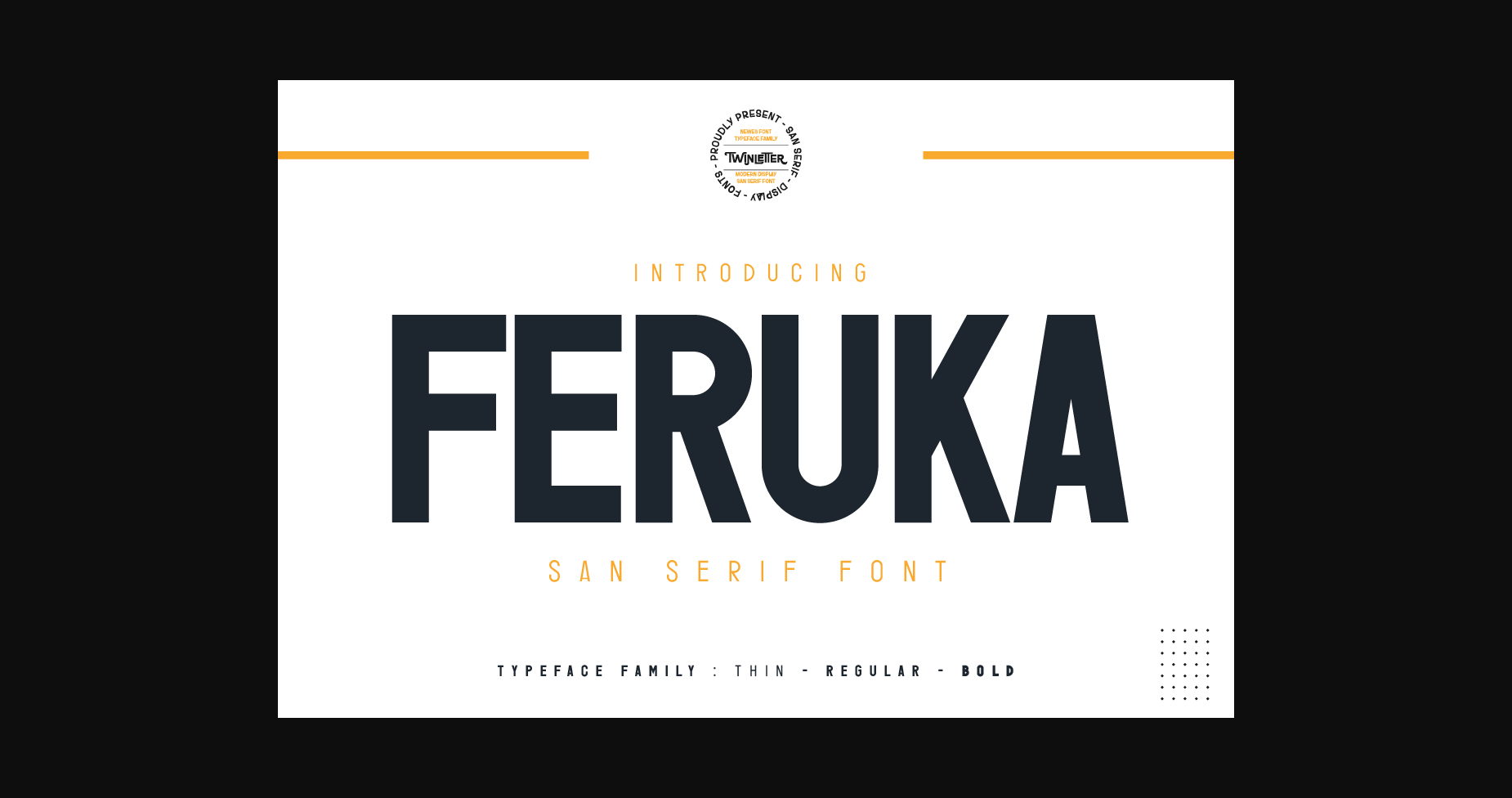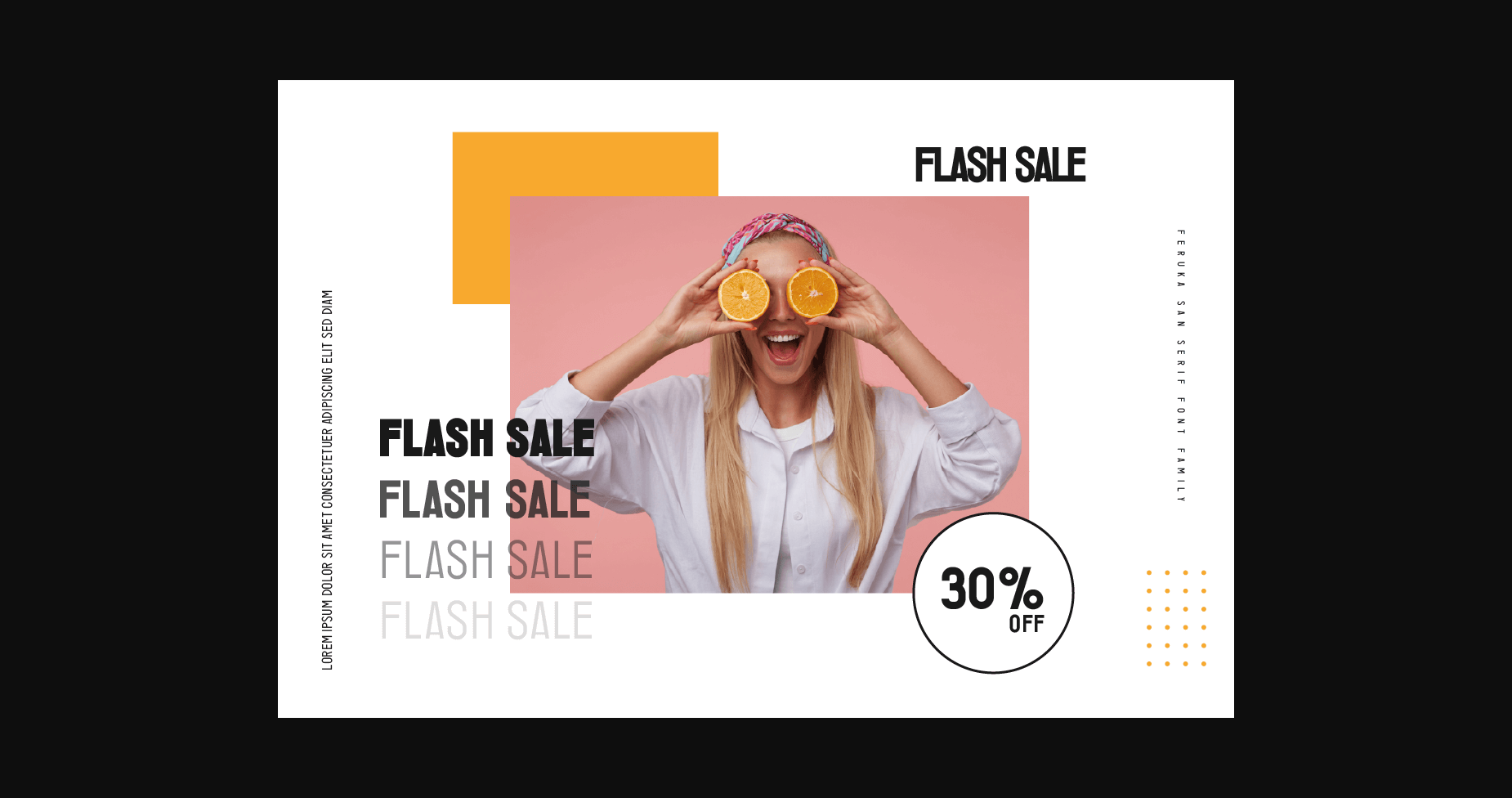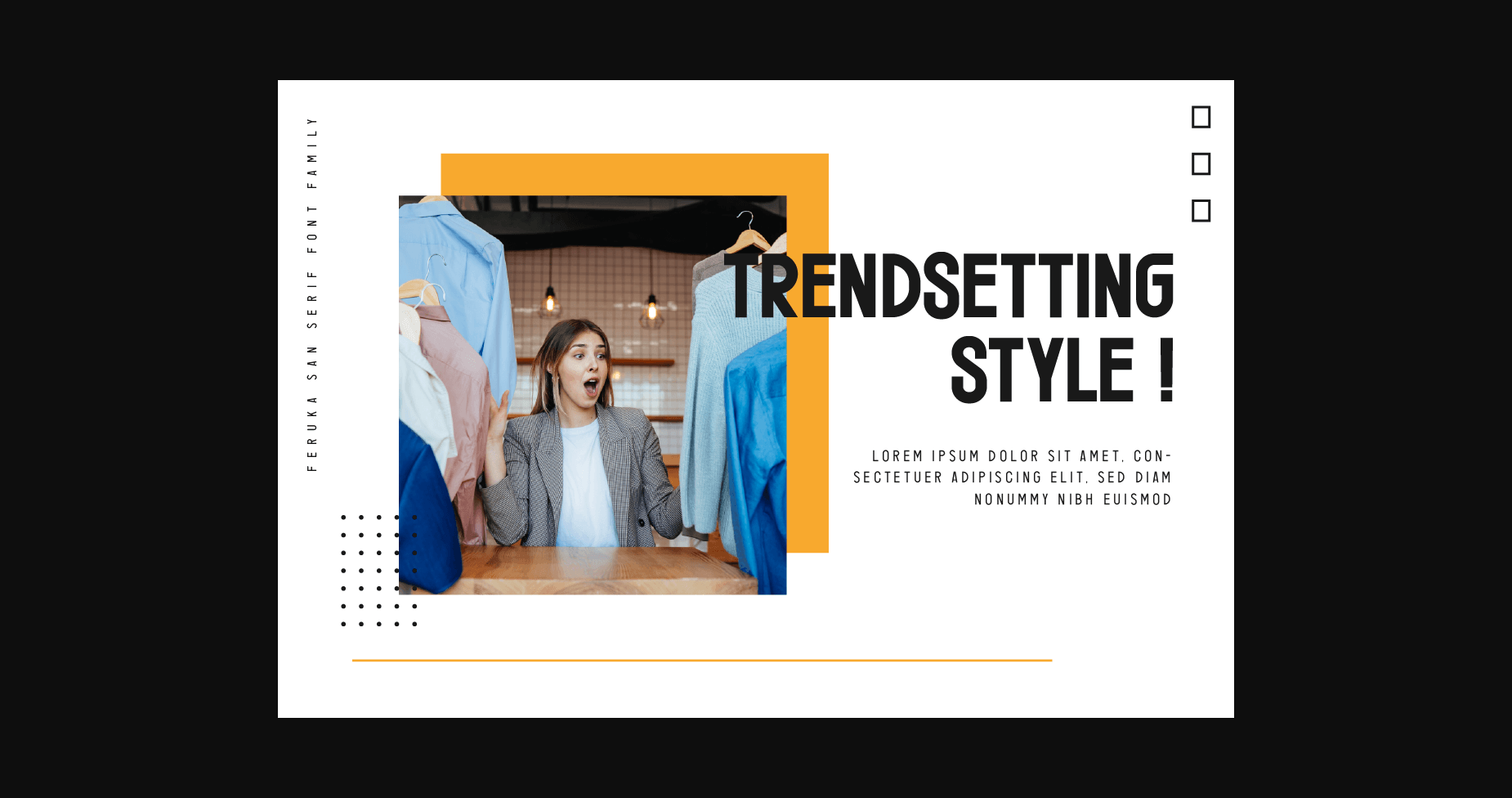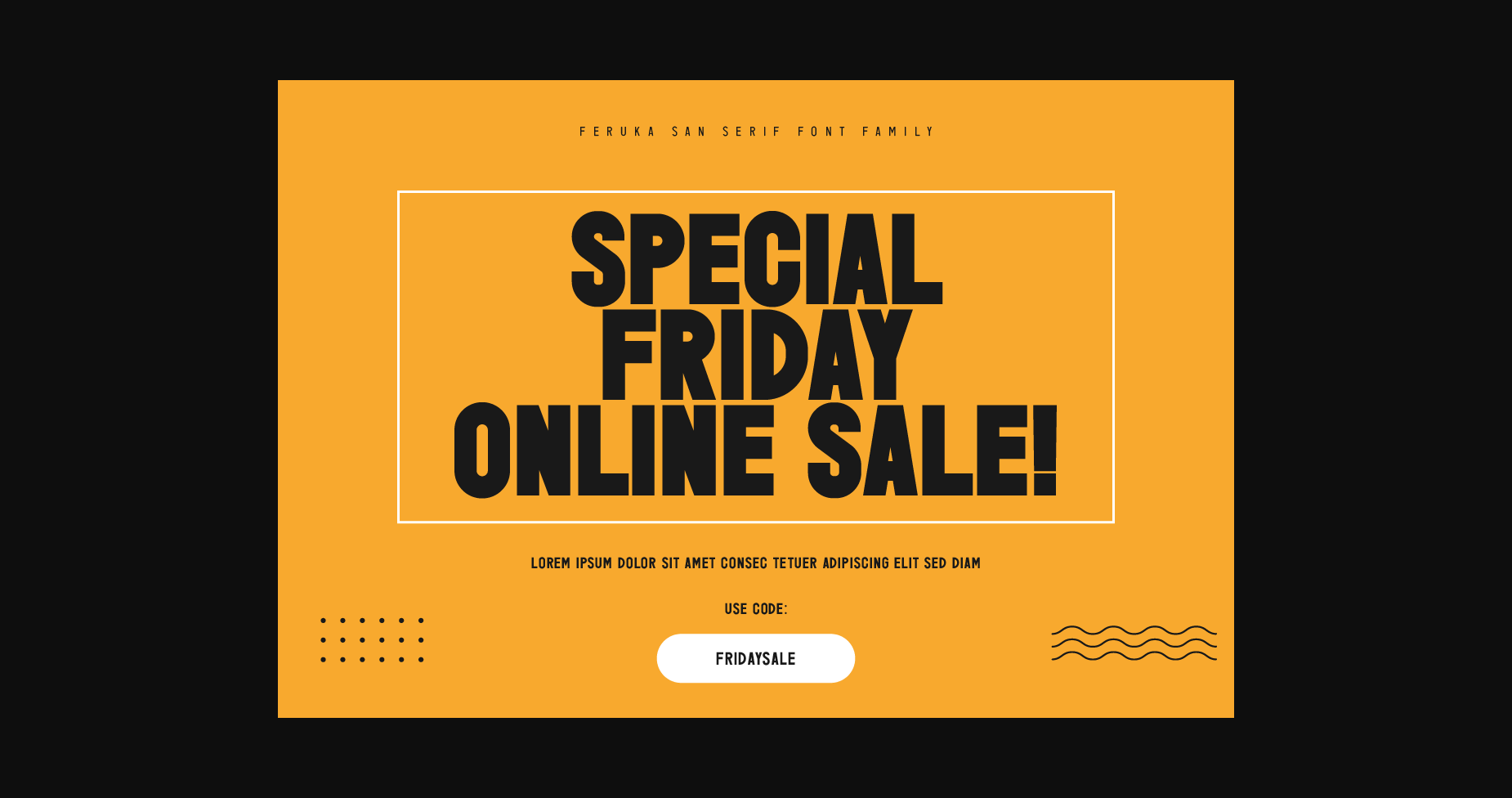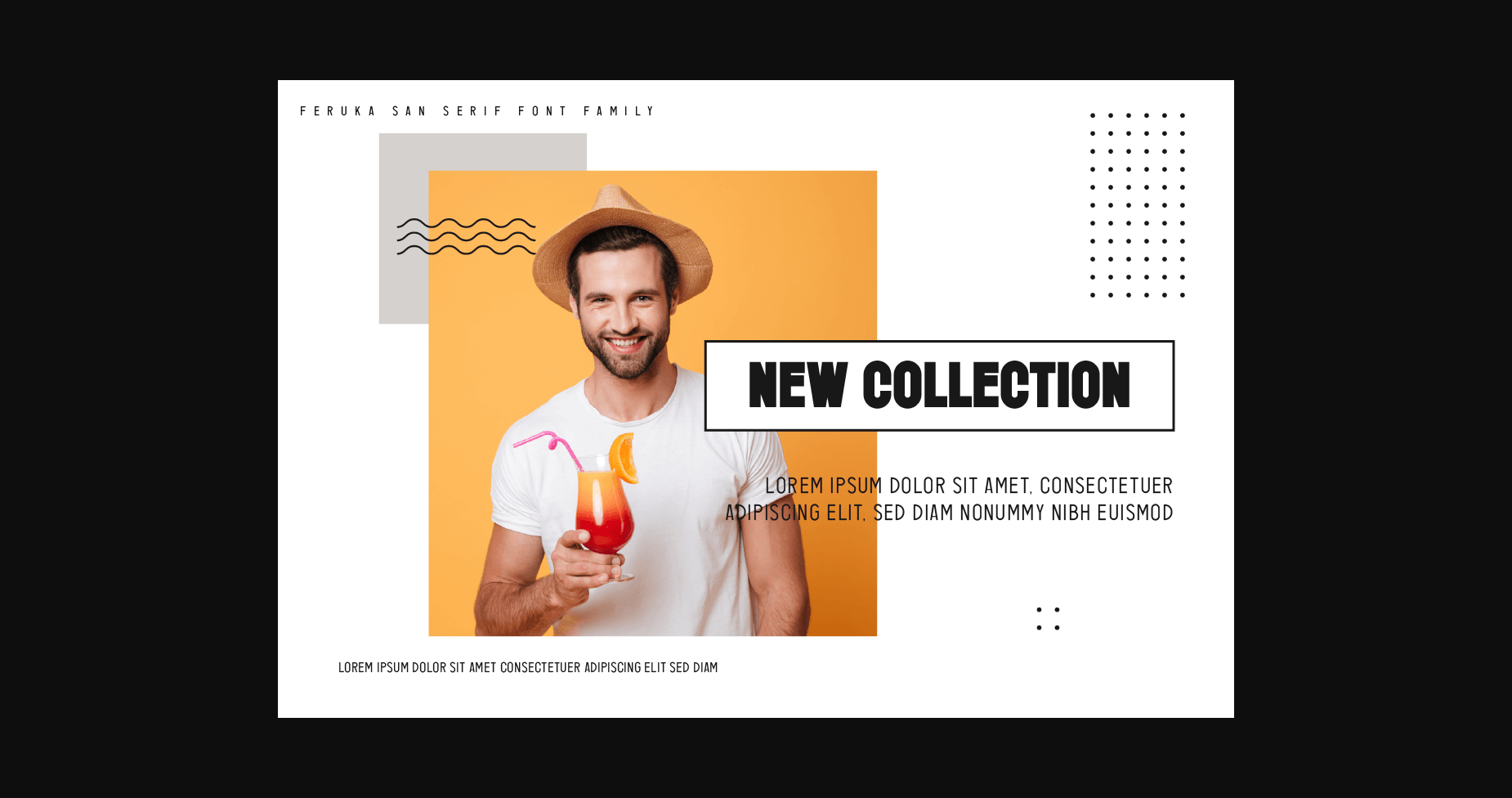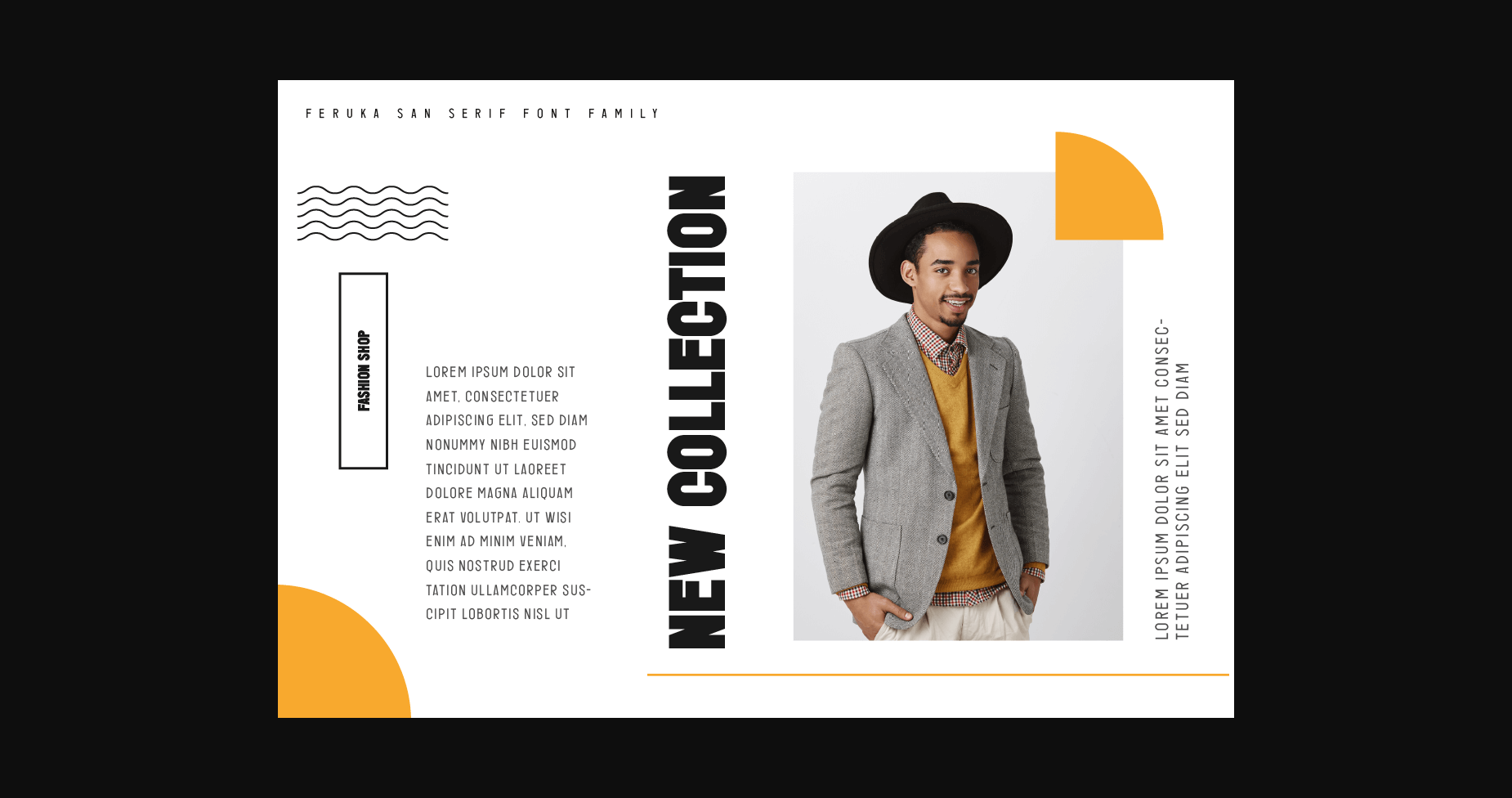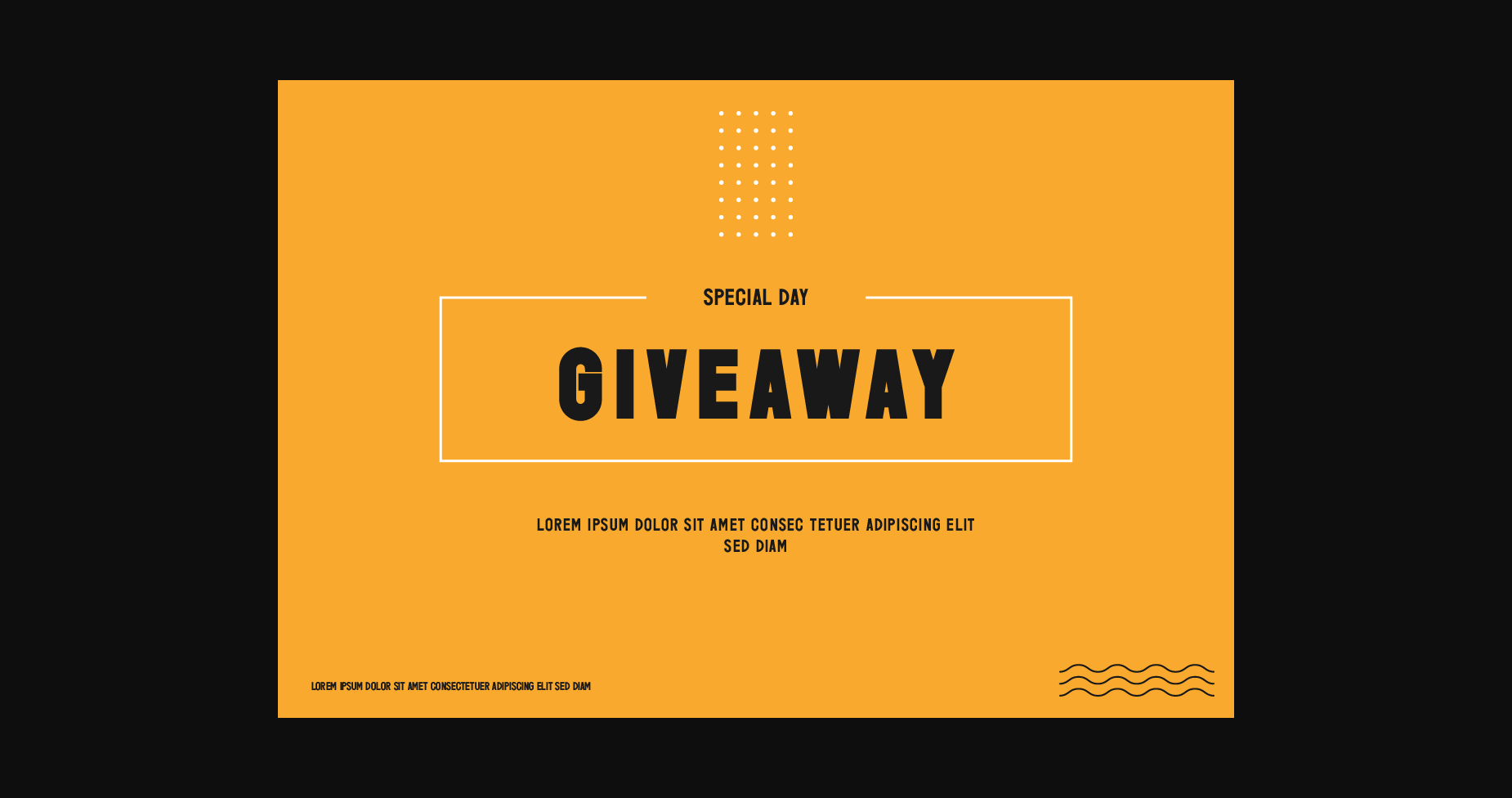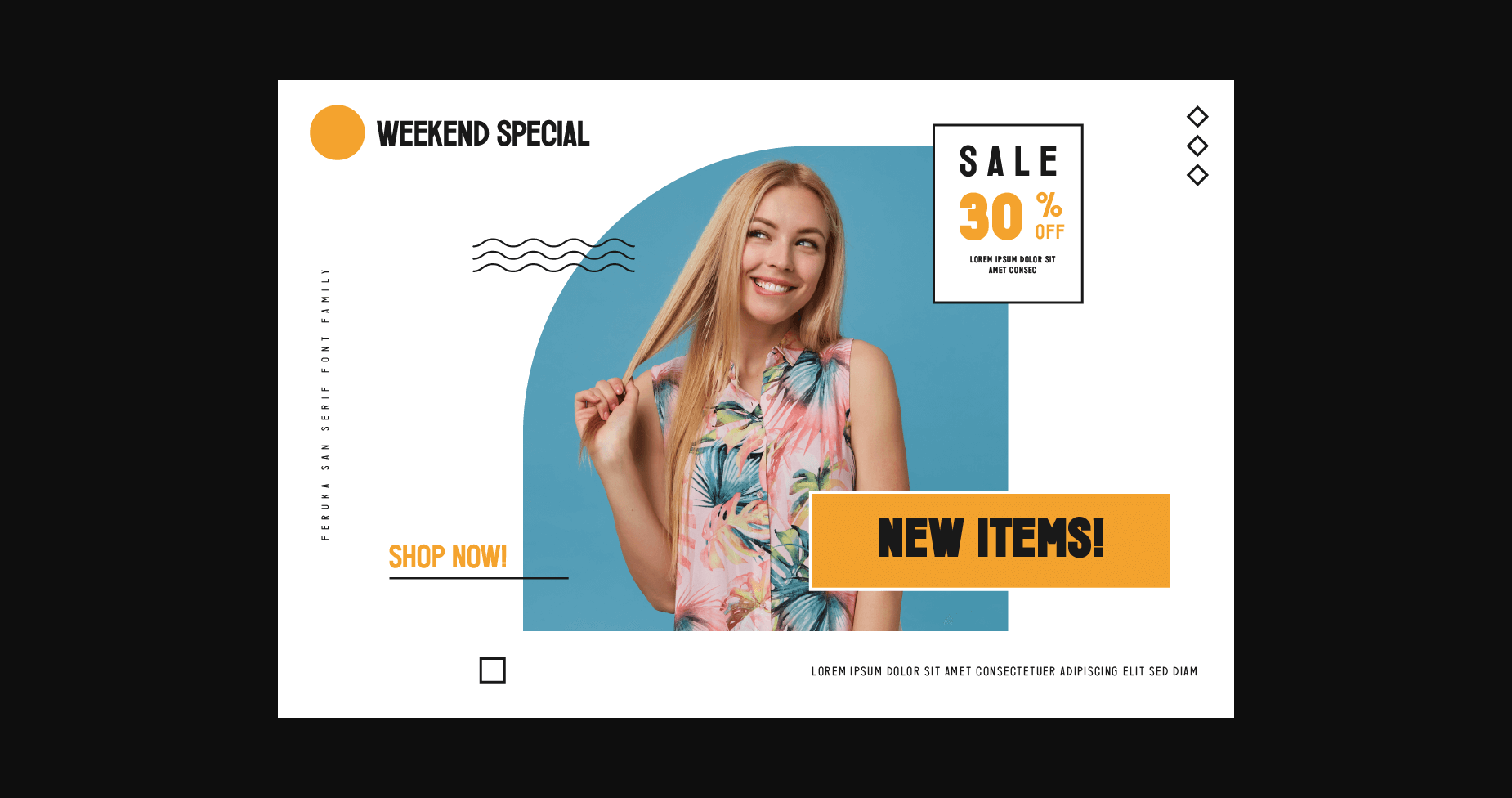
Feruka Font
About Feruka Font
Feruka is a bold and thick lettered sans serif font. This font is ideal for writing web designs, business cards, or pretty much anything else that requires a unique touch.